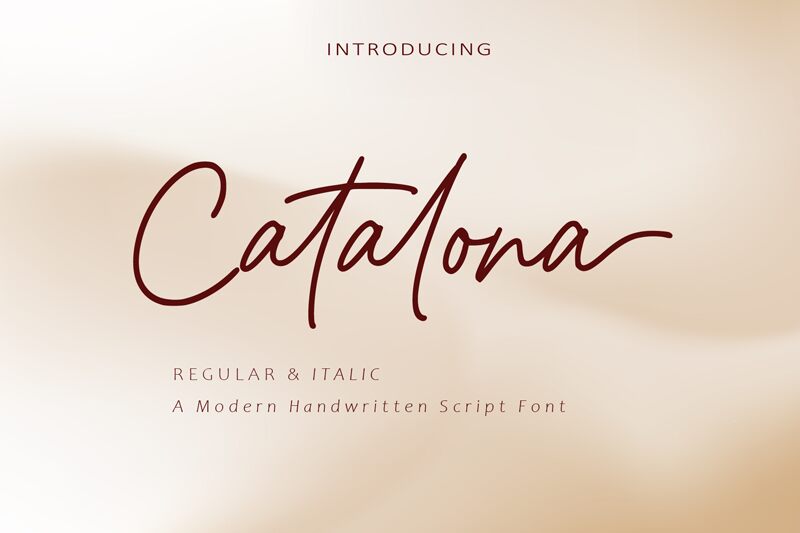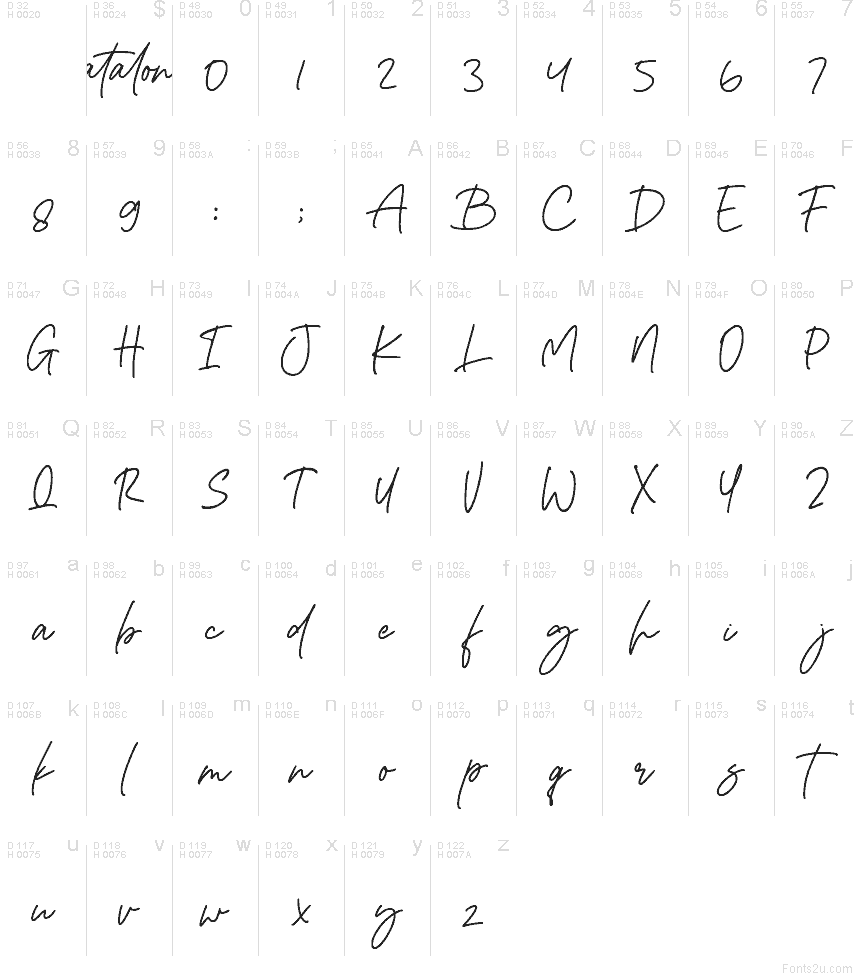
Catalona
Catalona, by AMINMARIO, is a free handwritten signature-style font with long, airy strokes and a relaxed fashion-note rhythm. The letters lean on smooth loops and tall sweeping lines, giving it the look of quick personal lettering rather than a polished calligraphy script.
It fits branding, boutique packaging, social media headers, invitation pieces, and magazine cover lines where a light, signed feel helps the wording stay personal. As a free font, Catalona also works well for title cards or short pull quotes, since those extended strokes need a little room to breathe.